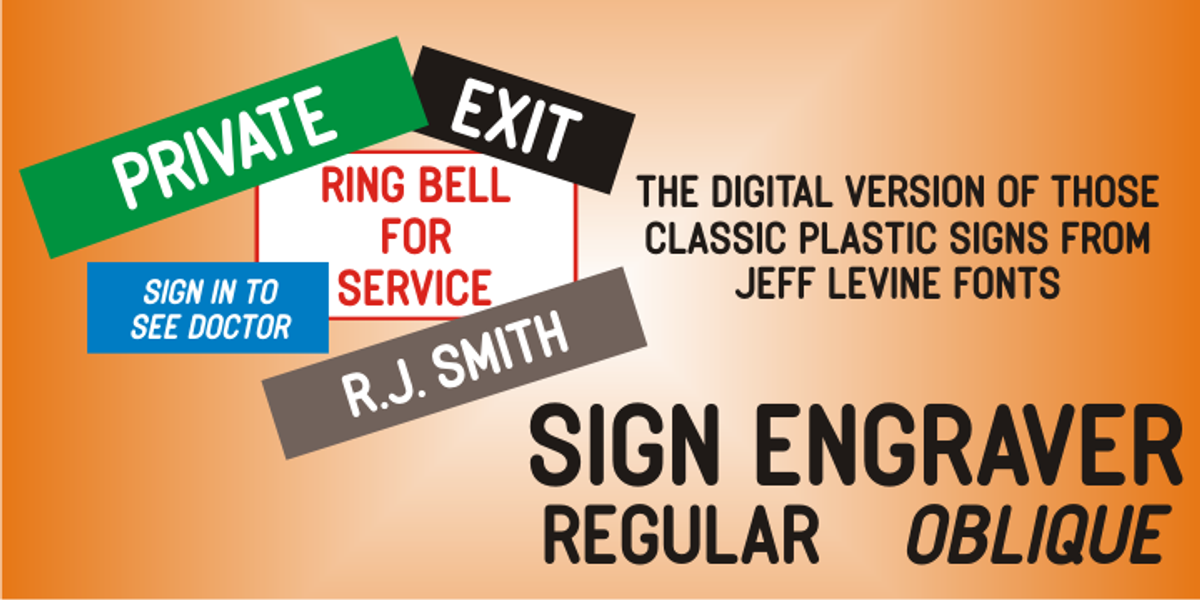
Sign Engraver
Sign Engraver JNL and Sign Engraver Oblique JNL reproduce the classic rounded letters and numbers engraved into plastic signs, desk nameplates and employee name tags.